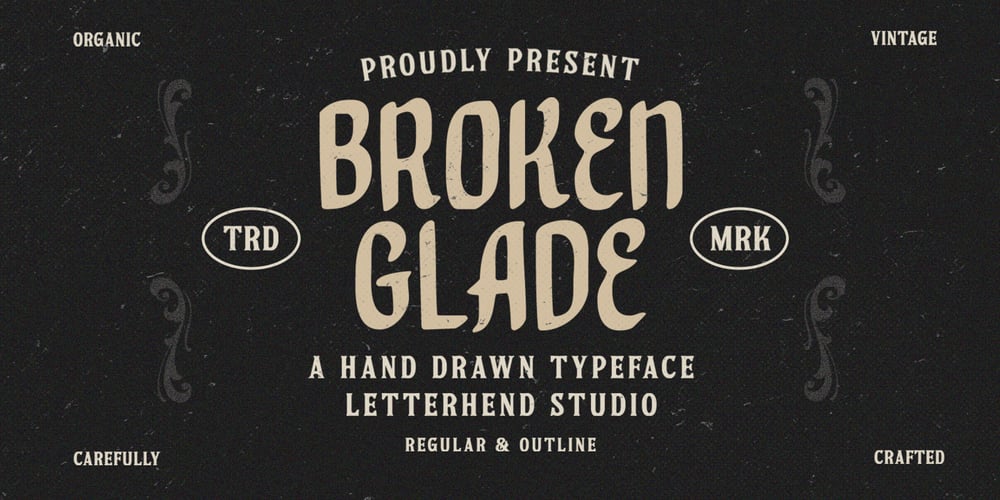
Broken Glade Font Family was designed by Hendry Juanda and published by Letterhend. Broken Glade contains 2 styles and family package options. Broken Glade is a classic hand drawn with vintage looks!. This unique font has 2 styles : regular and outline. This font perfectly made to be applied especially in logo, and the other various formal forms such as invitations, labels, logos, magazines, books, greeting / wedding cards, packaging, fashion, make up, stationery, novels, labels or any type of advertising purpose.Features : Uppercase & lowercase Numbers and punctuation Multilingual PUA encoded We highly recommend using a program that supports OpenType features and Glyphs panels like many of Adobe apps and Corel Draw, so you can see and access all Glyph variations.